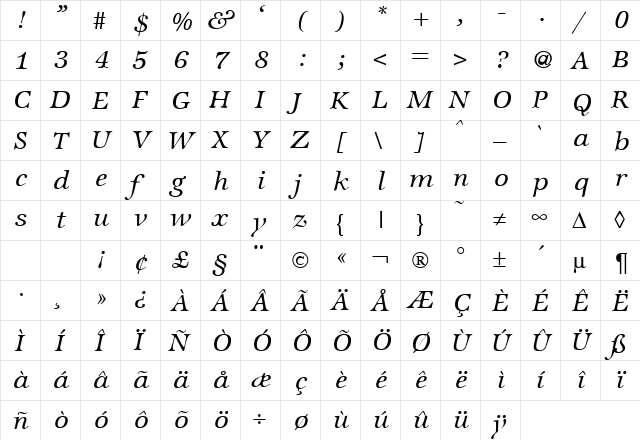
ZabriskieInternational RegularItalic
Design Context for ZabriskieInternational Typeface
ZabriskieInternational is a composed and adaptable typeface that performs quietly and consistently across a wide range of design contexts. The slanted form adds forward momentum and visual energy.
Pro Tip: Use ZabriskieInternational for emphasis, pull quotes, and subheadings where its slanted energy can add rhythm to the layout.